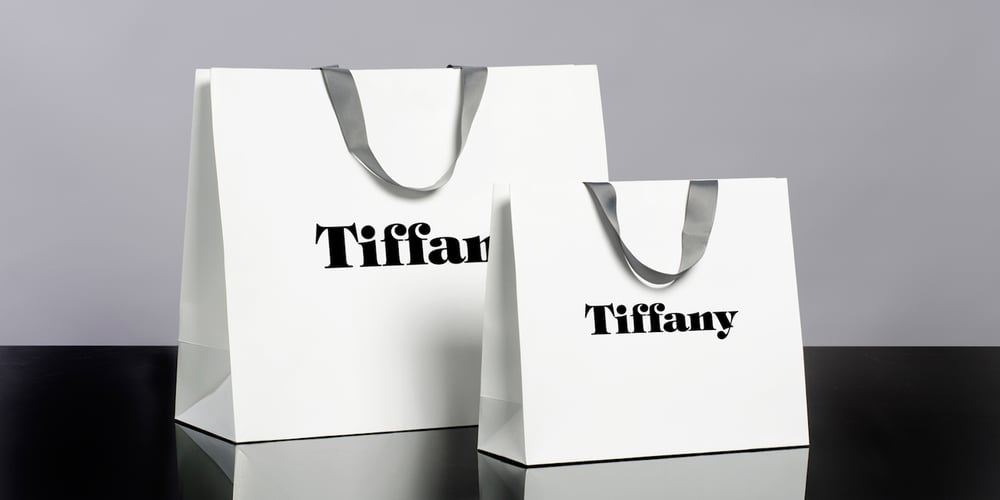
ITC Tiffany Font Family was designed by Edward Benguiat and published by ITC. ITC Tiffany contains 8 styles and family package options. ITC Tiffany font was designed by Edward Benguiat, a highly contemporary blend of two fonts, Ronaldson and Caxton. The best characteristics of both were combined to produce a refined and refreshing font, ITC Tiffany.